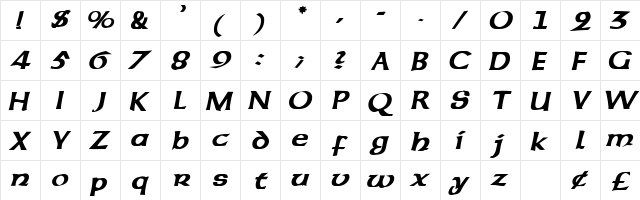
Output Oblique
Design Context for Output Typeface
Output is a composed and adaptable typeface that performs quietly and consistently across a wide range of design contexts. The dynamic lean of this cut emphasises speed and emphasis in any layout.
Pro Tip: Use Output for emphasis, pull quotes, and subheadings where its slanted energy can add rhythm to the layout.